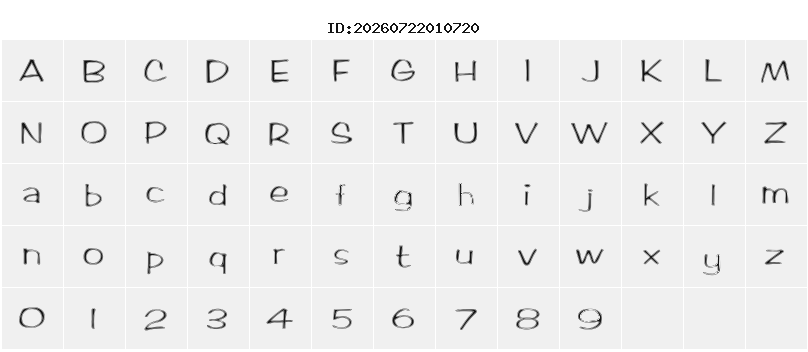
FZ HAND 2 CONTOUR Preview
• Font Name: FZ HAND 2 CONTOUR
• Full Font Name: FZ HAND 2 CONTOUR
About FZ HAND 2 CONTOUR.ttf
FZ HAND 2 CONTOUR.ttf is a modern, elegant sans-serif font designed for ultimate readability and visual harmony. Perfect for branding, headlines, web design, and print materials.